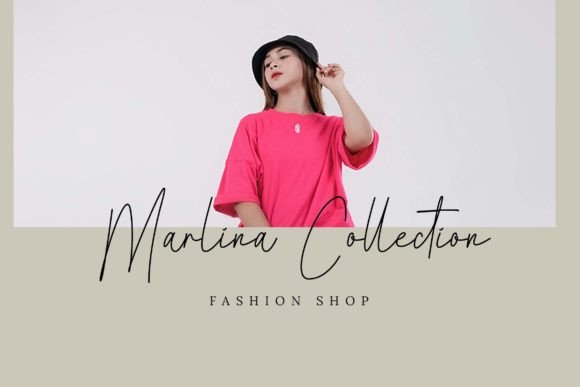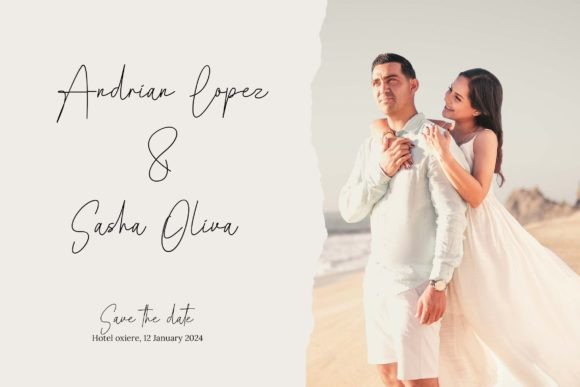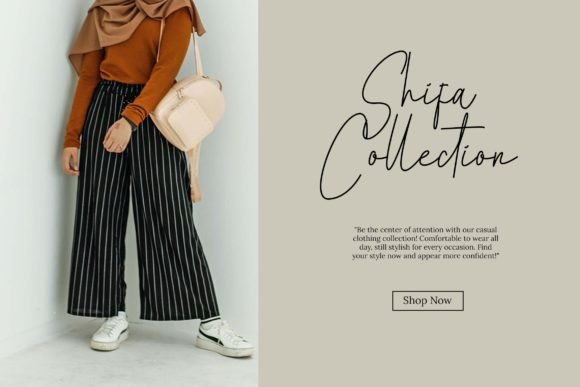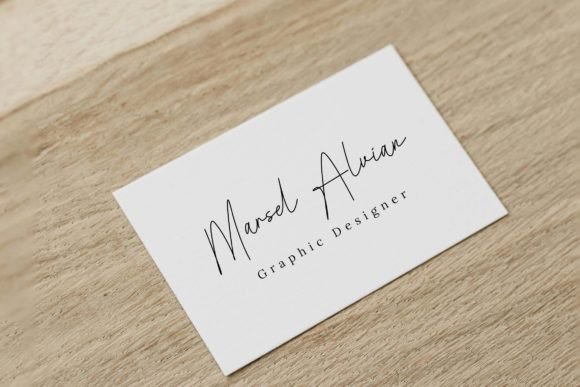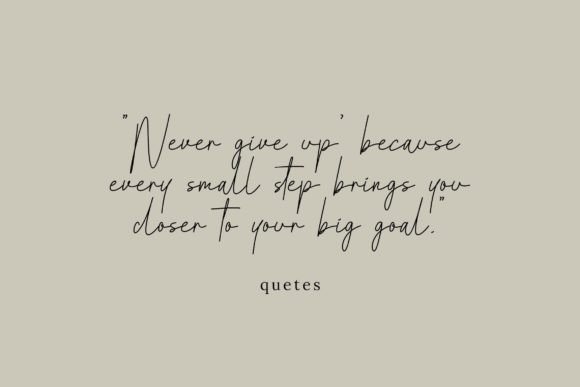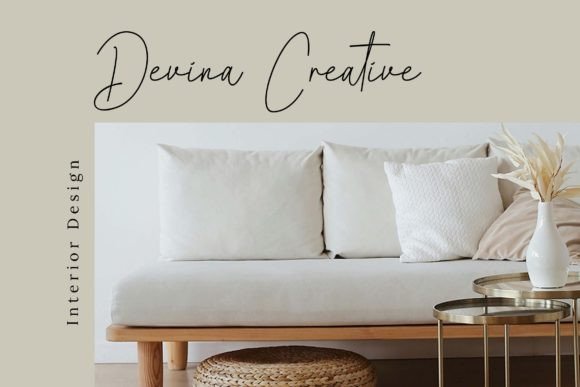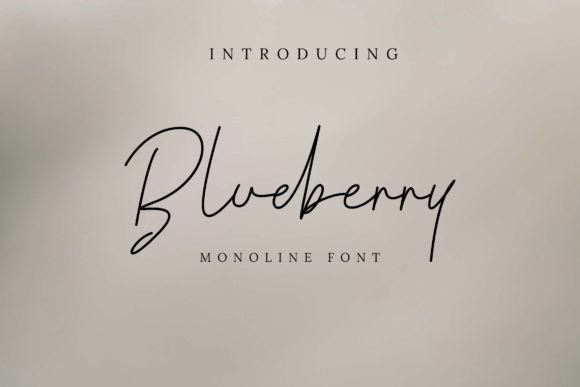
The Blueberry Font: A Stylish and Elegant Monoline Script
Blueberry is a stylish and elegant monoline script font that has become a staple in my design toolkit. Its sleek lines, beautiful ligatures, and extensive character set make it perfect for a wide range of design applications, from logos and headlines to branding, posters, and photography watermarks.
- ✨ Elegant and sophisticated design: Blueberry’s monoline script style is both modern and timeless, making it perfect for high-end branding and design projects.
- ✅ Extensive character set: The font includes uppercase and lowercase letters, numbers, punctuation, and ligatures, giving you plenty of options for creative expression.
- 💯 High-quality rendering: Blueberry looks great at any size, from small captions to large headlines.
While Blueberry is an excellent font, it’s not perfect. Here are a few things to keep in mind:
- ⚠️ Limited suitability for body text: Due to its elegant and cursive nature, Blueberry may not be the best choice for long blocks of body text. It’s better suited for headlines, titles, and short paragraphs.
- 🤔 Some characters may require manual adjustment: Depending on the design and layout, some characters may need manual adjustment to ensure proper spacing and alignment.
Blueberry was designed by a talented type designer who was inspired by the elegance and sophistication of luxury brands. The designer wanted to create a font that was both modern and timeless, with a unique and eye-catching style. The result is a font that’s perfect for designers who want to add a touch of elegance and sophistication to their designs.
Q: What is the Blueberry font?
A: Blueberry is a stylish and elegant monoline script font that’s perfect for logos, headlines, branding, and other design applications.
Q: What characters are included in the Blueberry font?
A: Blueberry includes uppercase and lowercase letters, numbers, punctuation, and ligatures.
Q: Is Blueberry suitable for body text?
A: While Blueberry is an excellent font, it’s not ideal for long blocks of body text. It’s better suited for headlines, titles, and short paragraphs.